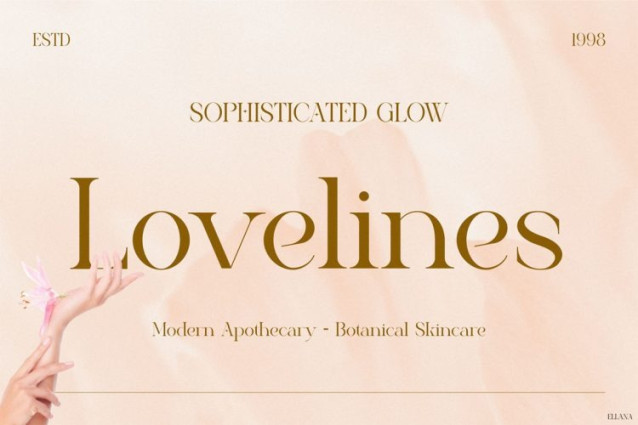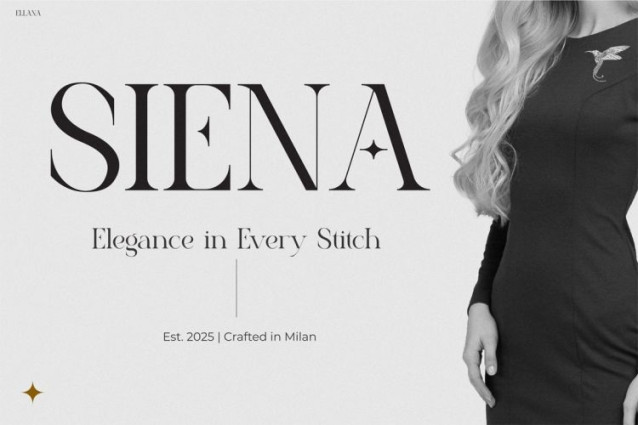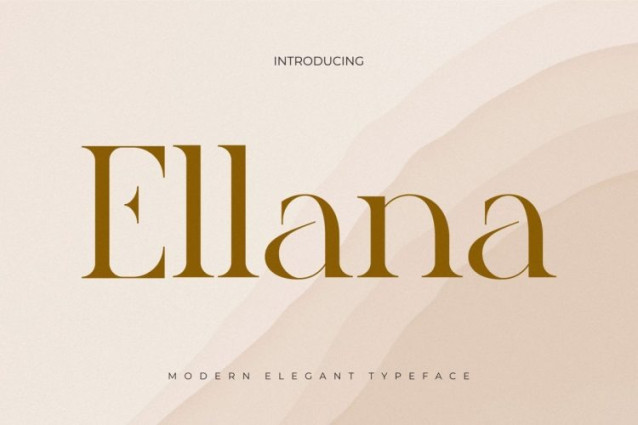
Ellana Font
Ellana Font is a modern elegant serif typeface created to deliver luxury, clarity, and refined visual balance. From the very first glance, this font feels polished and exclusive. Its uniqueness comes from the harmony between smooth curves and sharp serif edges, which results in a timeless yet contemporary aesthetic. Moreover, every letter is carefully designed to feel graceful without sacrificing strength. As a result, Ellana communicates confidence while remaining visually soft and inviting. In addition, the font offers excellent readability, making it highly functional for both digital and print use. As shown in the preview images, Instagram Font Ellana performs beautifully across fashion branding, jewelry packaging, cosmetic labels, editorial layouts, and luxury product presentations. Therefore, this font becomes an ideal solution for designers who want elegance with real design flexibility.
Consequently, headlines appear luxurious and expressive, while body text remains clean and comfortable to read. Furthermore, the font’s serif structure adds a sense of tradition, which helps designs feel trustworthy and premium. At the same time, the modern spacing keeps the typography fresh and current.
Moreover, the preview visuals demonstrate how well Ellana adapts to different creative contexts. It looks equally stunning in minimalist layouts, gold-accent branding, soft neutral palettes, and bold editorial compositions. Additionally, the font pairs effortlessly with photography, floral elements, and elegant textures. Because of its versatility, Instagram Font Ellana works seamlessly for logos, packaging, magazines, website headers, social media graphics, and marketing materials. Therefore, designers can rely on this font to deliver consistent elegance across all platforms and formats.